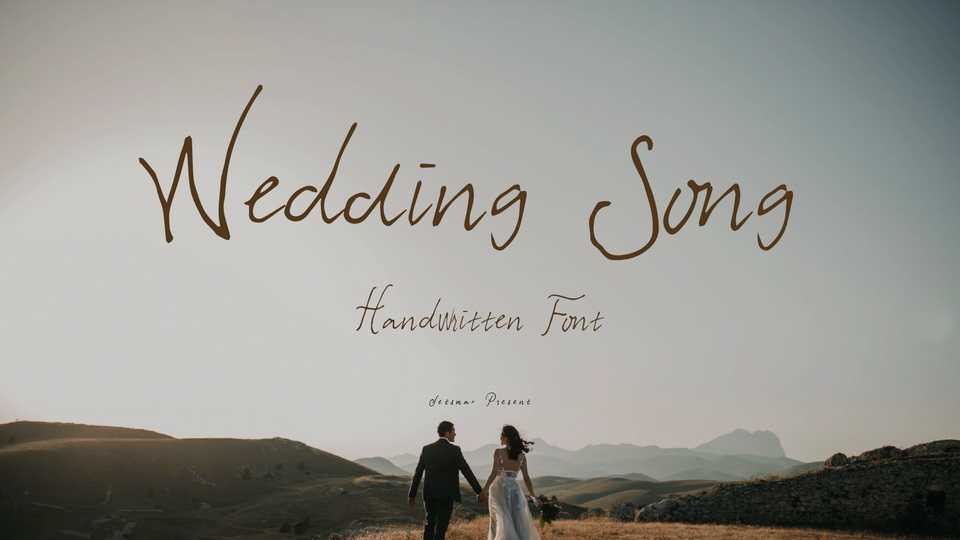
Download Wedding Song font, a lovely handwritten typeface that dancing around the romance theme. This font is personally made to give your creative projects an intimate and sentimental touch.